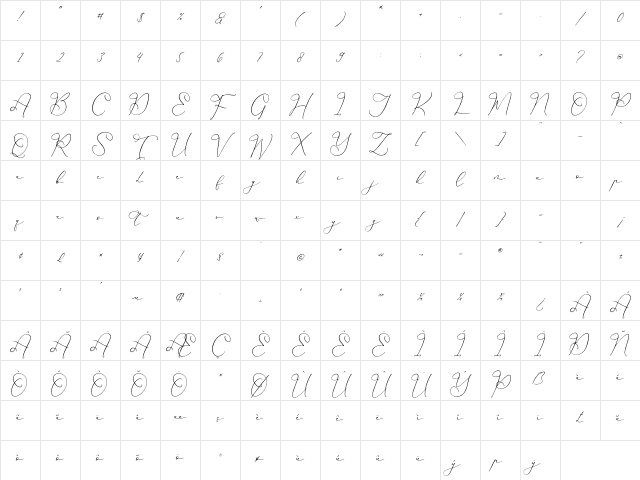
Hardyela Sandert Regular
Foundry: Storytype Studio
Designer: Heru Utama Putra
Design Context for Hardyela Sandert
Hardyela Sandert is a composed and adaptable typeface that performs quietly and consistently across a wide range of design contexts.